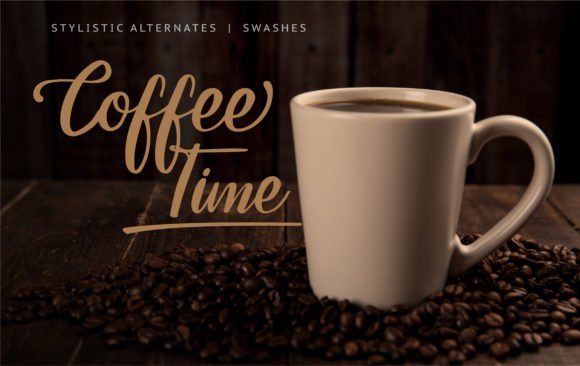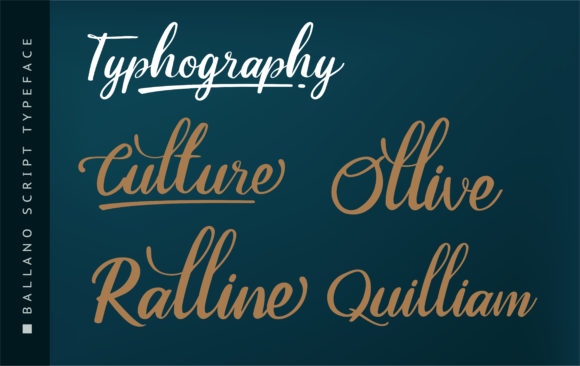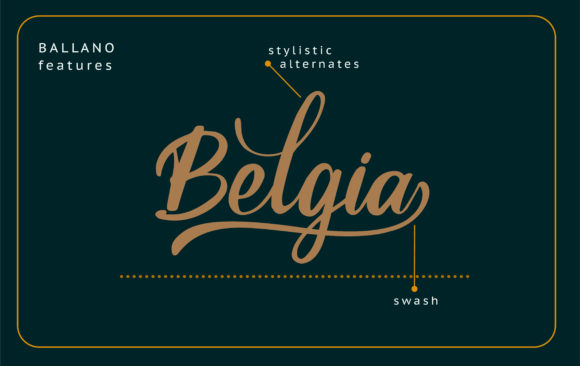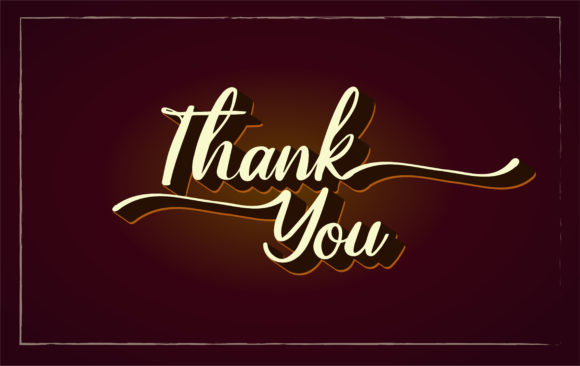
Ballano Font
About Ballano Font
Ballano is a magical handwritten font carefully created with a touch of elegance. This is a beautiful combination of timeless elegance and authentic calligraphy. Use this gorgeous and unique font to bring any DIY project to life!